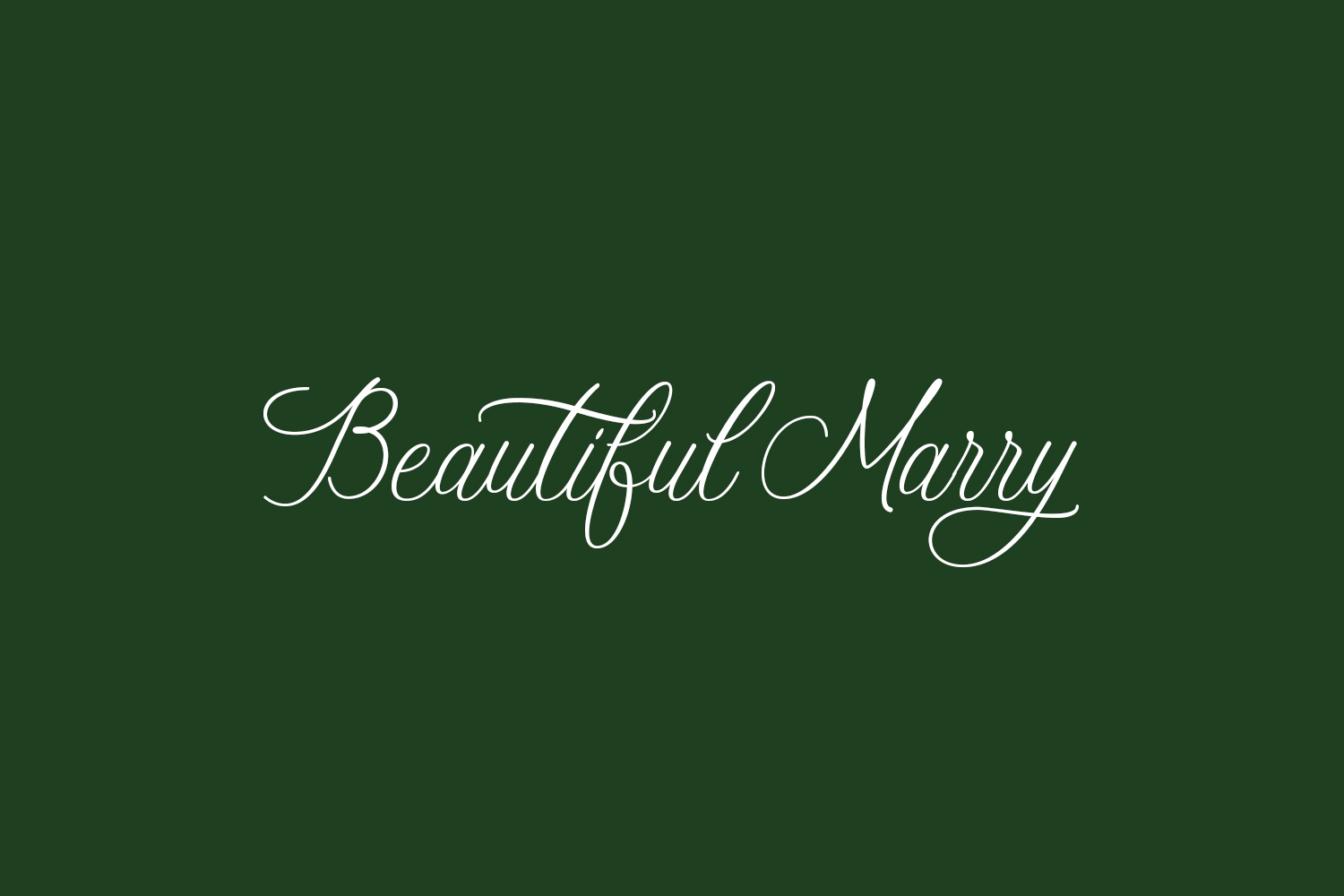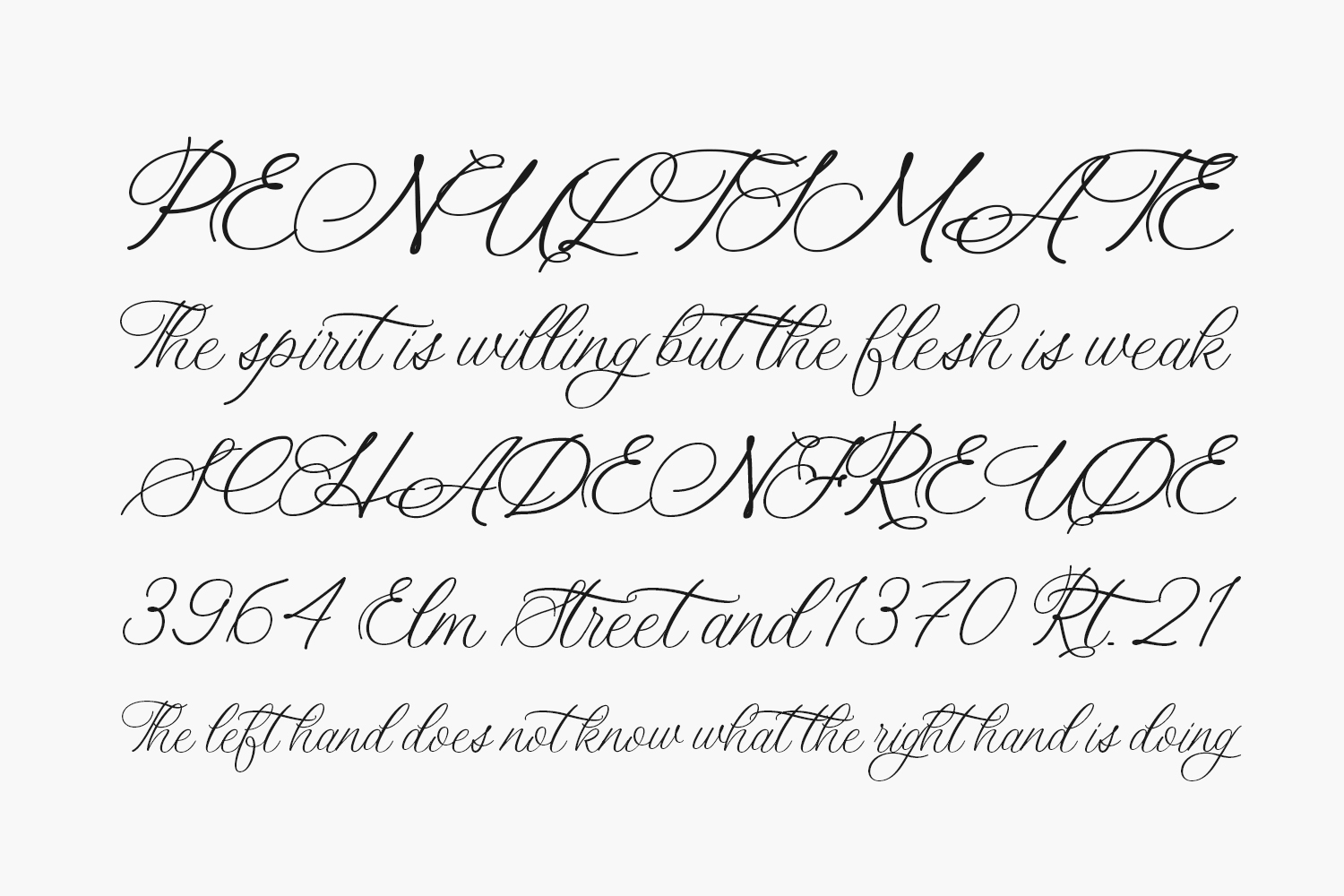
Discover the enchanting allure of Beautiful Marry Free Font, a captivating calligraphy typeface where each character gracefully dances along the baseline. This exquisite font is guaranteed to infuse your design projects with a touch of luxury and elegance.
Embrace the romance and sweetness of Beautiful Marry as you embark on your creative journey. Whether you’re crafting a wedding invitation, designing a logo, or working on any other project, this meticulously crafted typeface will effortlessly elevate your work to new heights. Beautiful Marry Free Font is free for personal use only. Please purchase the full version for commercial use.